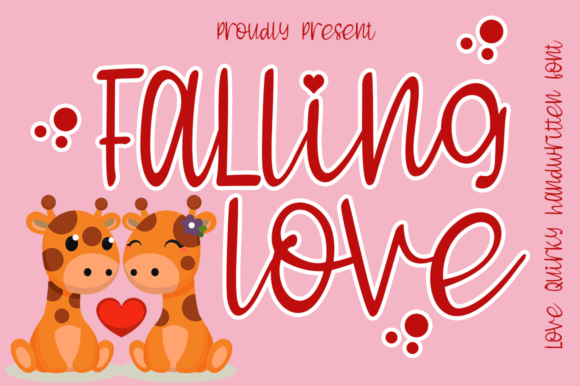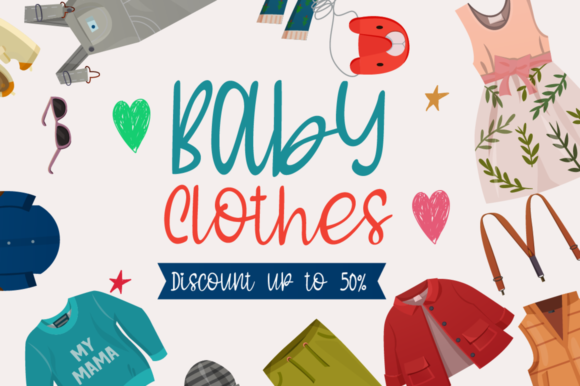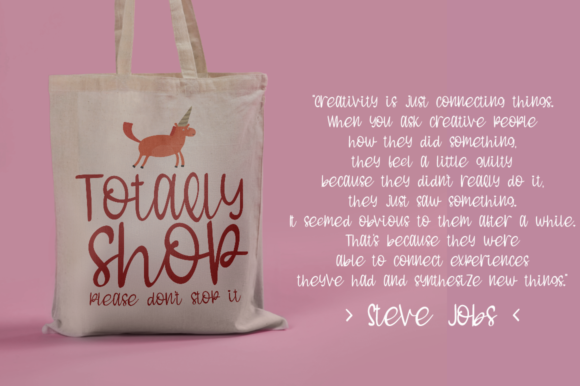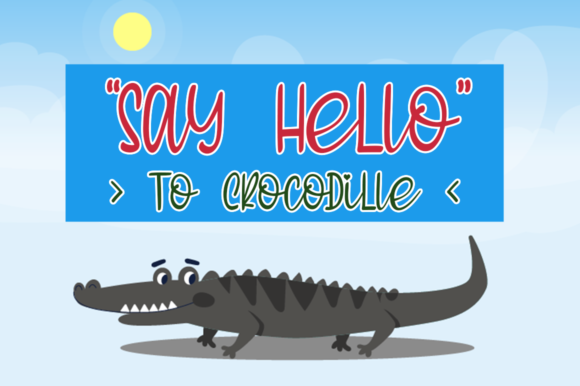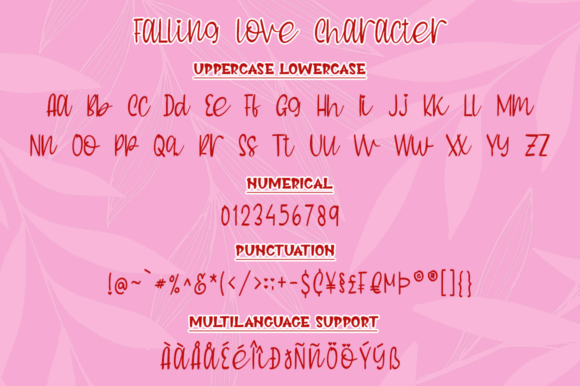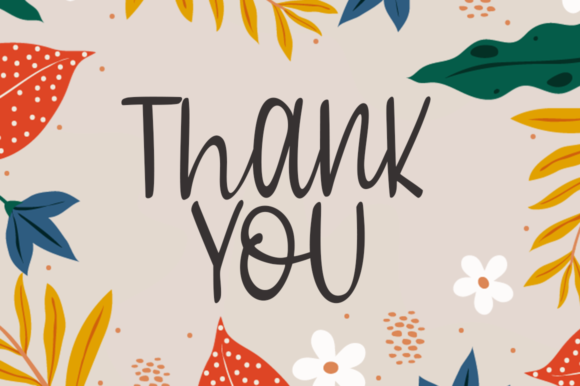
HomeScript FontsFalling Love Font Script Fonts Falling Love Font FacebookXPinterestWhatsApp Falling Love Font Poster 2 Falling Love Font Poster 3 Falling Love Font Poster 4 Falling Love Font Poster 5 Falling Love Font Poster 6 About Falling Love Font Falling Love is a gorgeous script full of life. It will add a romantic spark to any crafting project! DOWNLOAD NOW People also explored Royal Wedding Monograms Esallio Vintage Font Lighthouse Font Olive Oil Park West JNL Font Mercy Font Qutapy Font Berem Berem Font Eagle Star Font 287 0 TagsFalling Love Font Previous articleHedaga FontNext articleFoxie Nippy Font LEAVE A REPLY Cancel reply Comment: Please enter your comment! Name:* Please enter your name here Email:* You have entered an incorrect email address! Please enter your email address here Website: Save my name, email, and website in this browser for the next time I comment. Personal Use Free Simple Personal Use Free Read more about this font BD Medled Personal Use Free Read more about this font Wanita Cantik Personal Use Free Read more about this font My Ugly Handwritting Personal Use Free Read more about this font BLOG Best Fonts for T-Shirt Design – Top 2025 Picks In 2025, t-shirt design has become more than just fashion—it's a form of self-expression. Whether you're... Where to Buy American Fonts Online in 2024 5 Fonts That Will Dominate Design Trends in 2026 How to Install and Use Fonts on Windows, macOS, and Web Projects